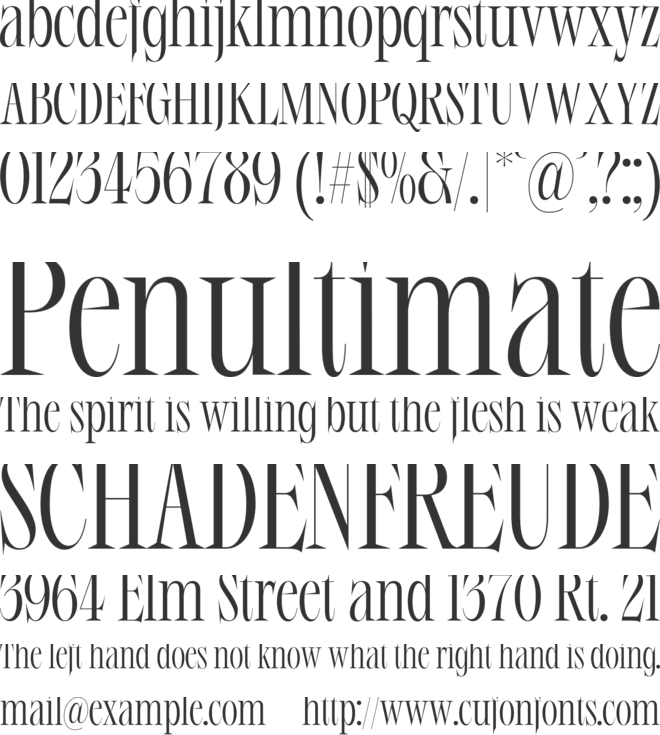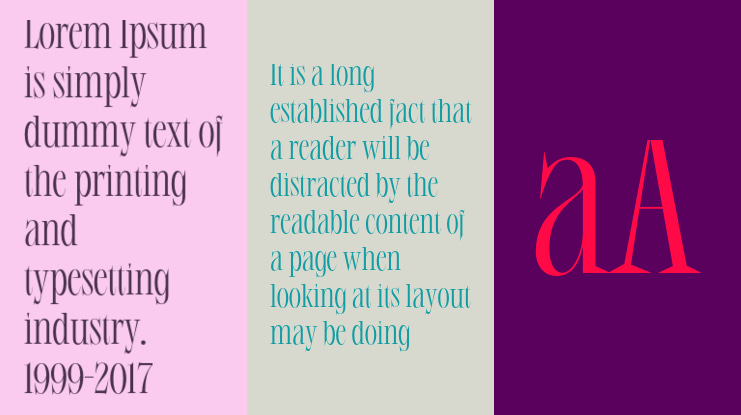
Jolicia Type Foundry
GAFSURE is a striking display serif typeface that blends classical
elegance with modern editorial style. Featuring dramatic
contrasts, refined curves, and expressive terminals, this font
creates a bold and luxurious visual impact. With a rich collection
of stylish stylistic alternates, decorative swashes, and unique
letter variations, GAFSURE is perfect for branding, editorial
design, luxury packaging, fashion campaigns, logos, posters, and
sophisticated visual identities that demand attention.